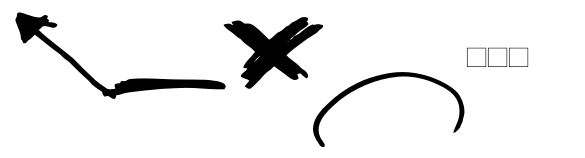
PiS HansHand Pro
par PiS
La famille de polices PiS HansHand Pro a été conçue par Hannes Siengalewicz et publiée par PiS. PiS HansHand Pro contient 3 styles.
HansHand started out in 2003 as a simple free font, the adaption of my grimy handwriting. For its 10th anniversary it got a complete overhaul and lots of new characters. Now also available in BOLD for the first time, featuring scribbles, strokes, circles and boxes to underline the fast taking-notes-while-on-the-phone look!
Polenimschaufenster is the Type Foundry of Vienna/Austria based graphic designer and type aficionado Hannes Siengalewicz. He loves his typefaces handmade, scribbled, well-used, edgy and retro. PiS Fonts have been used in diverse fields of visual communication, from super market chain ad campaigns over computer games to props in the Harry Potter movies.